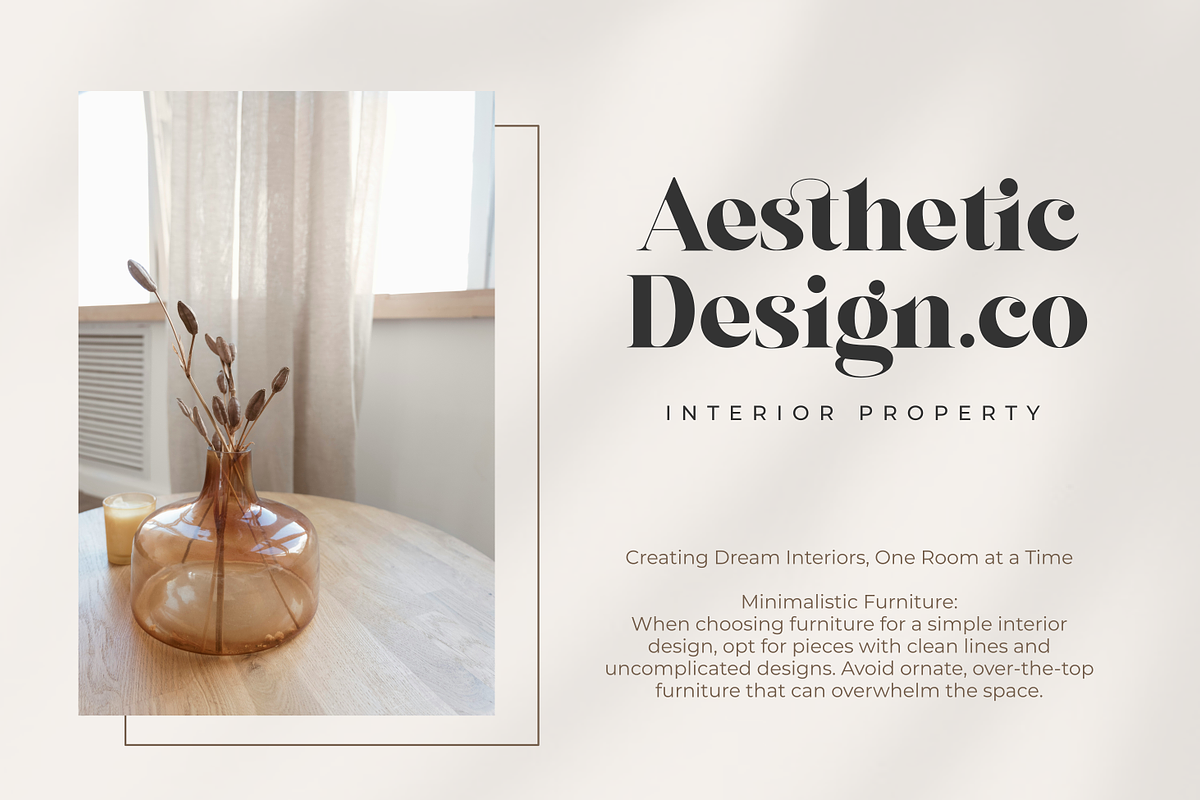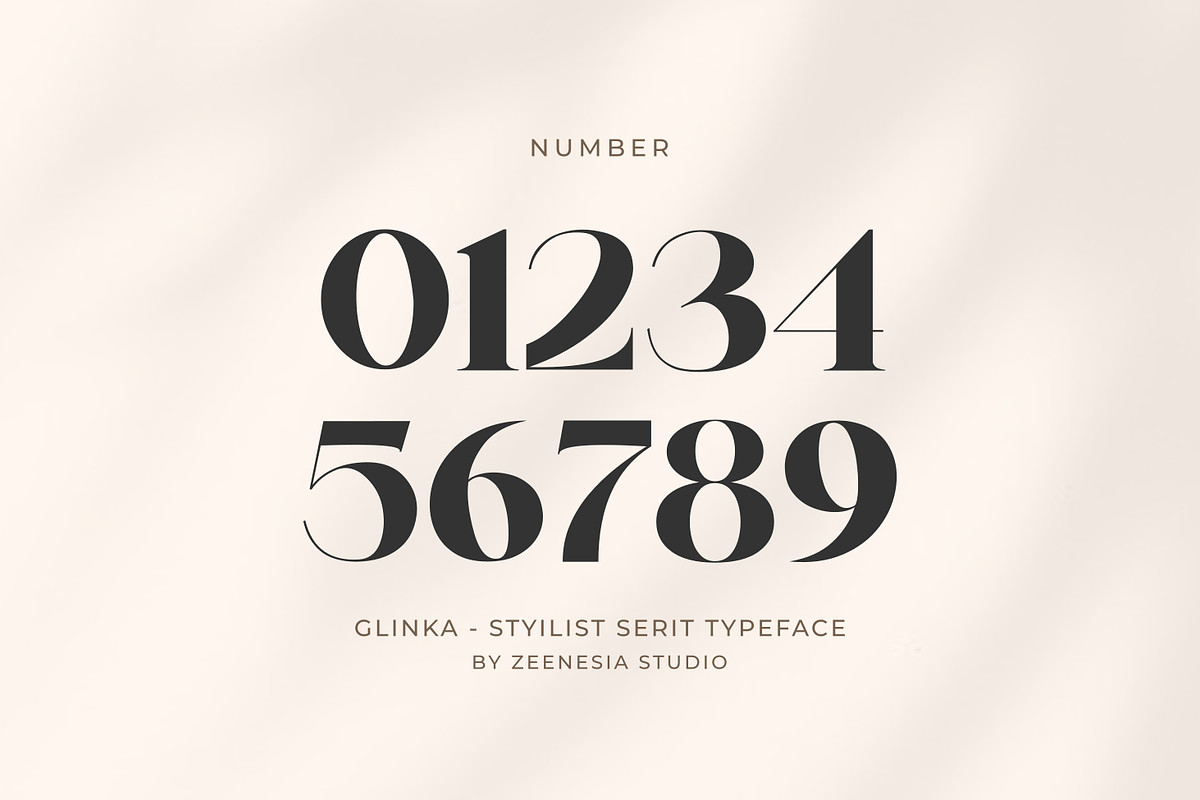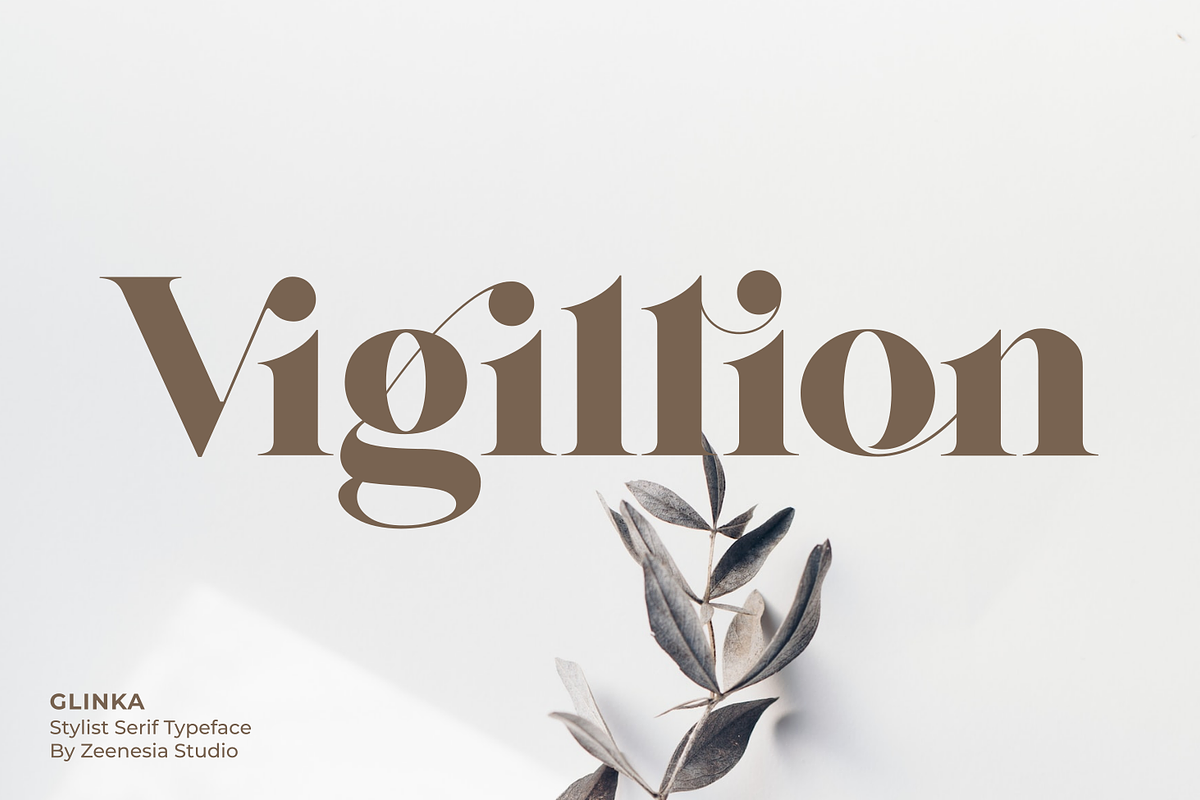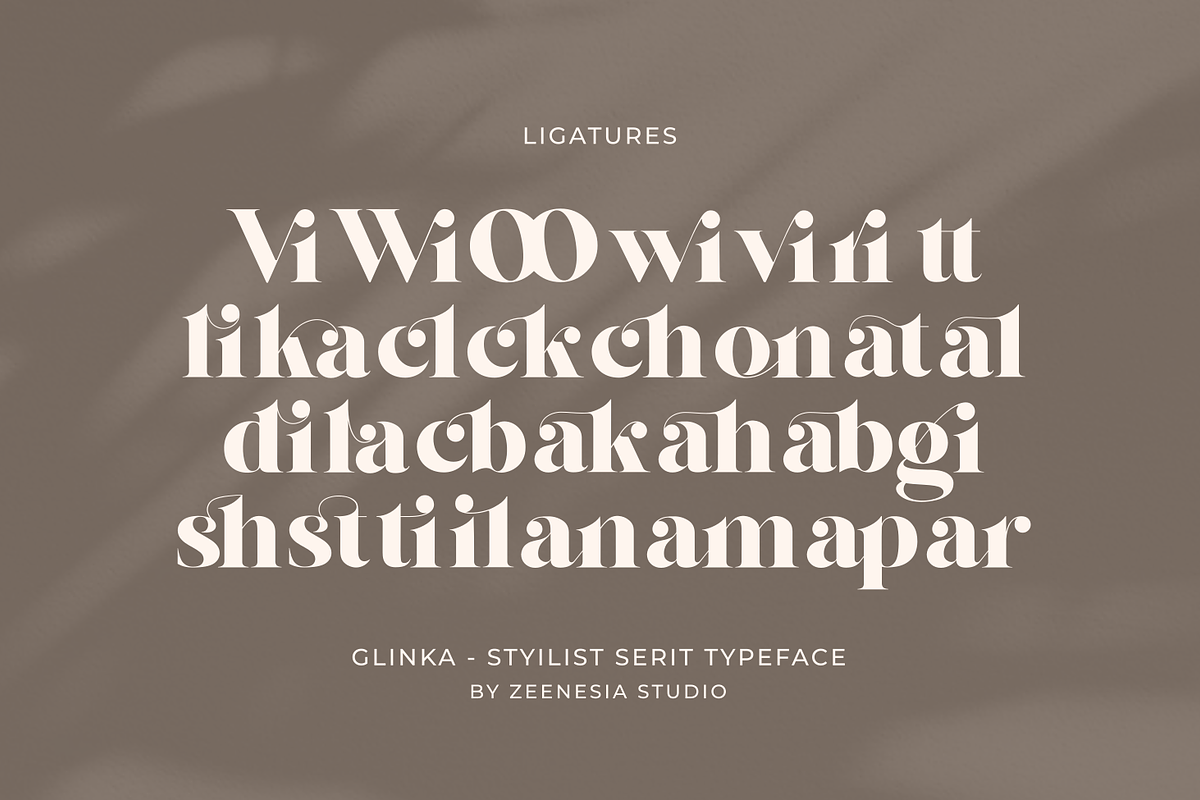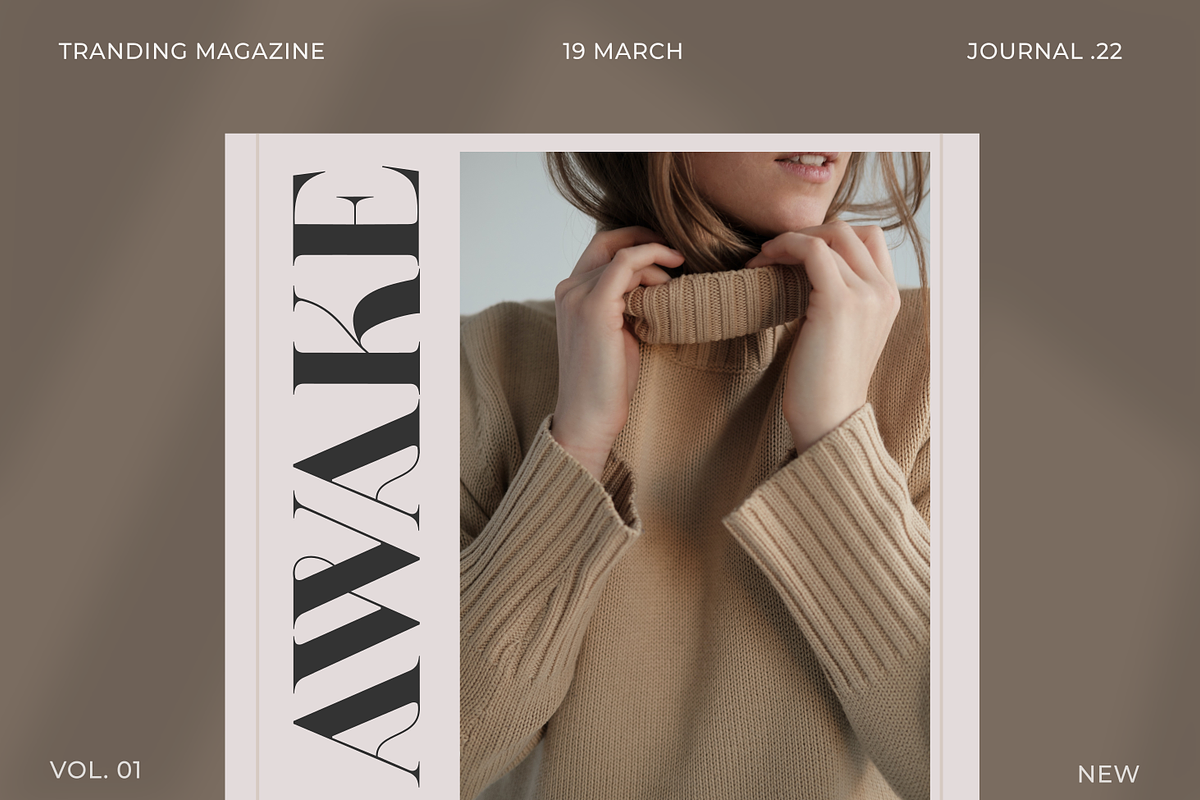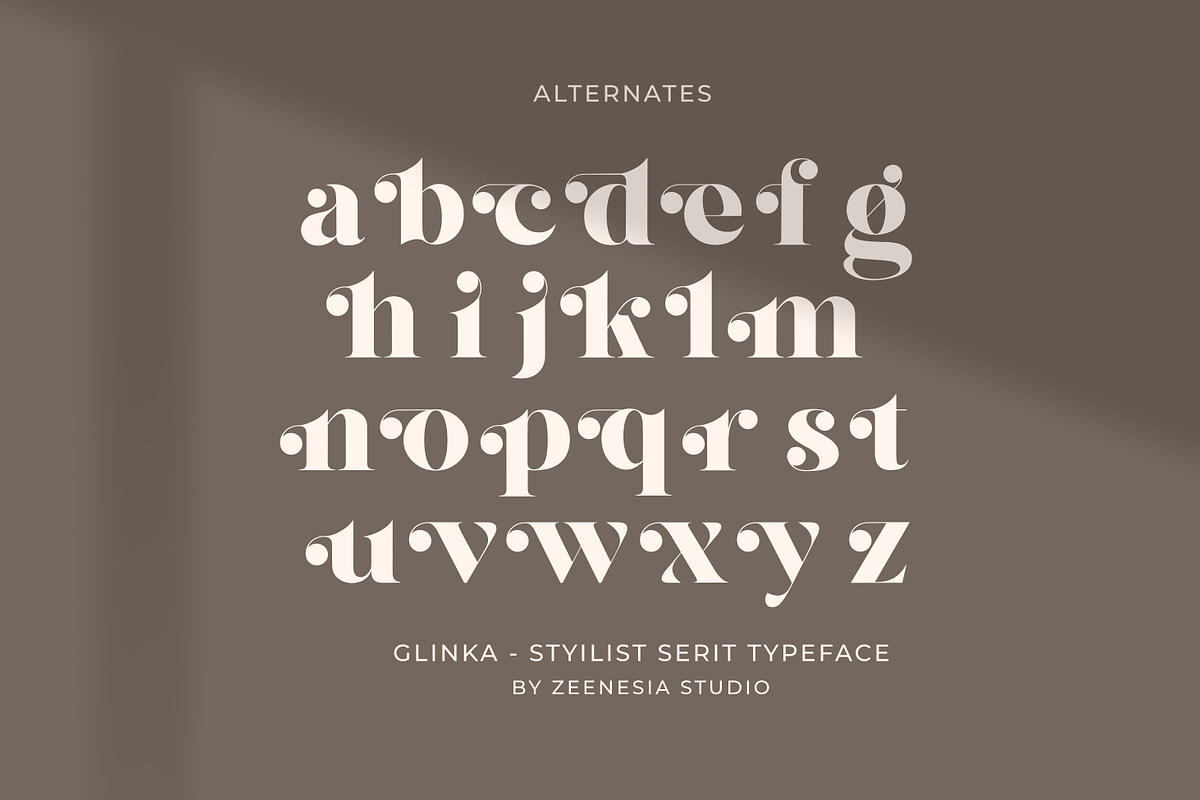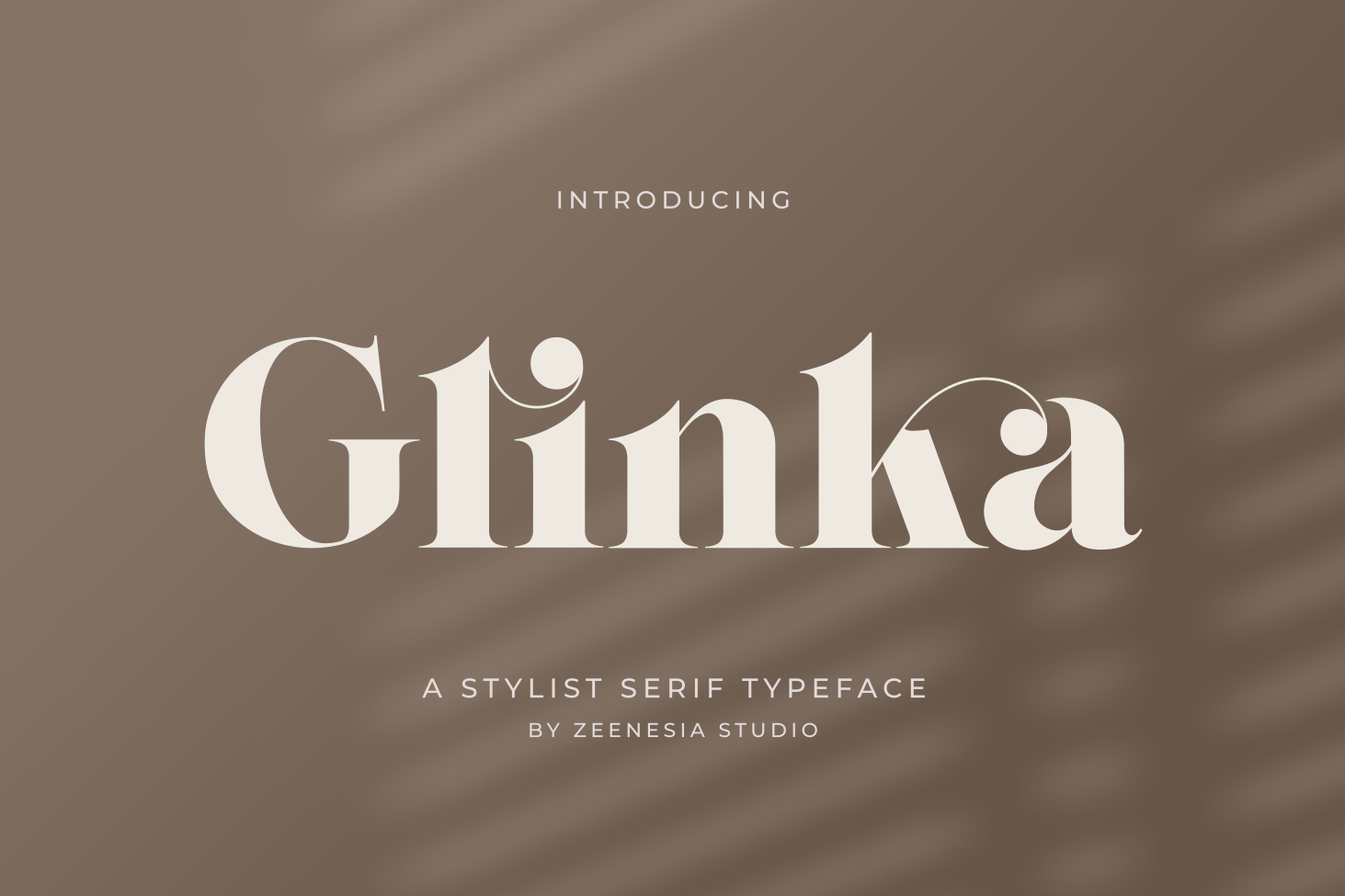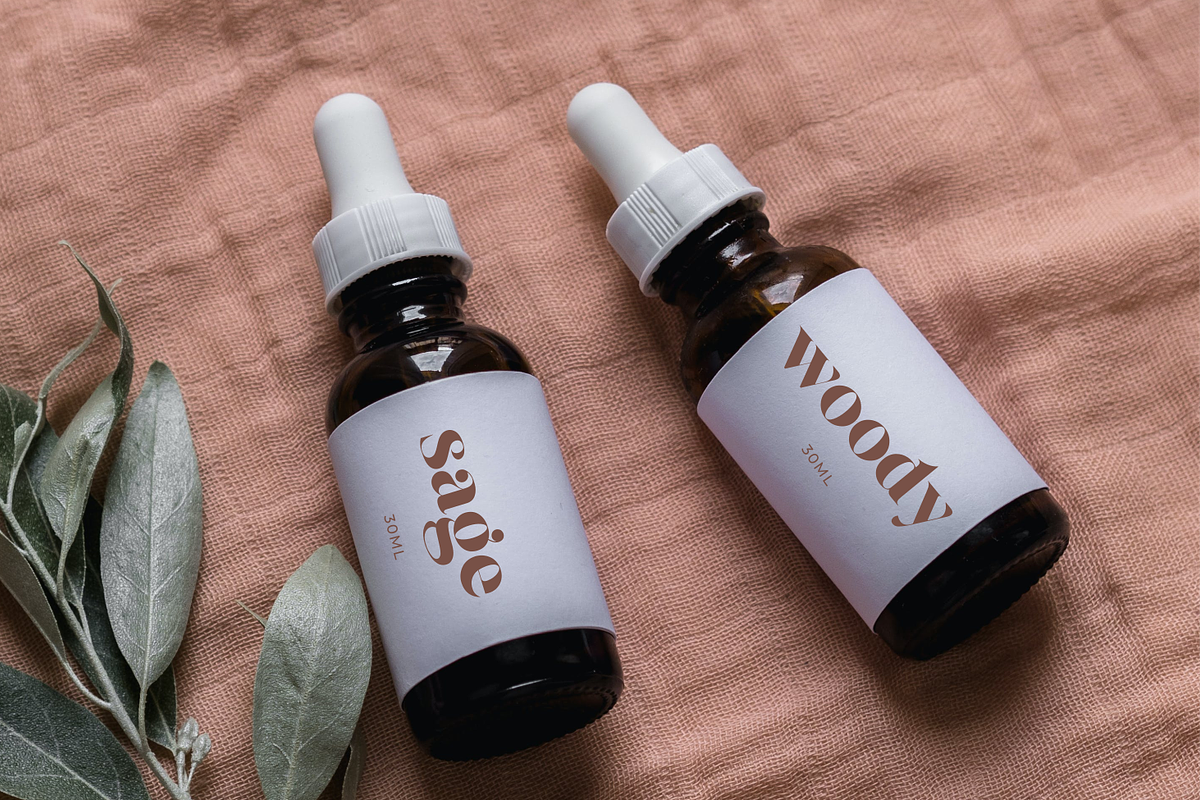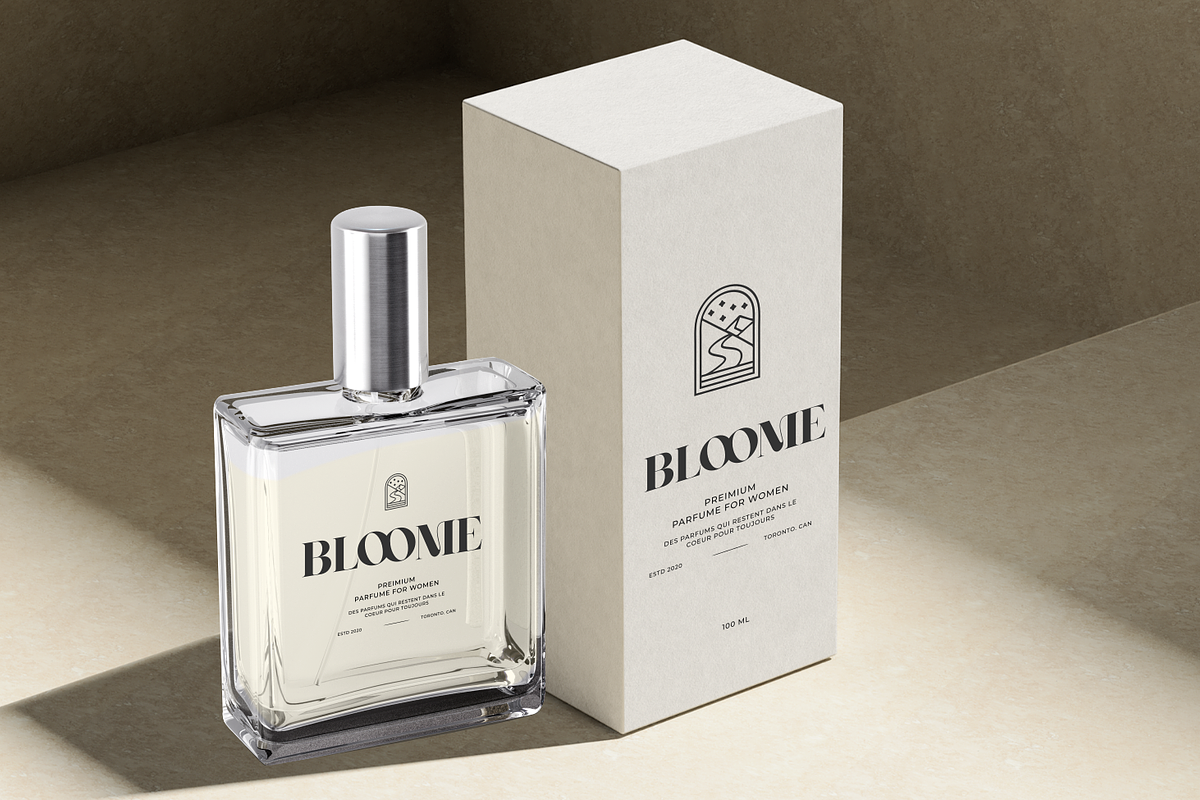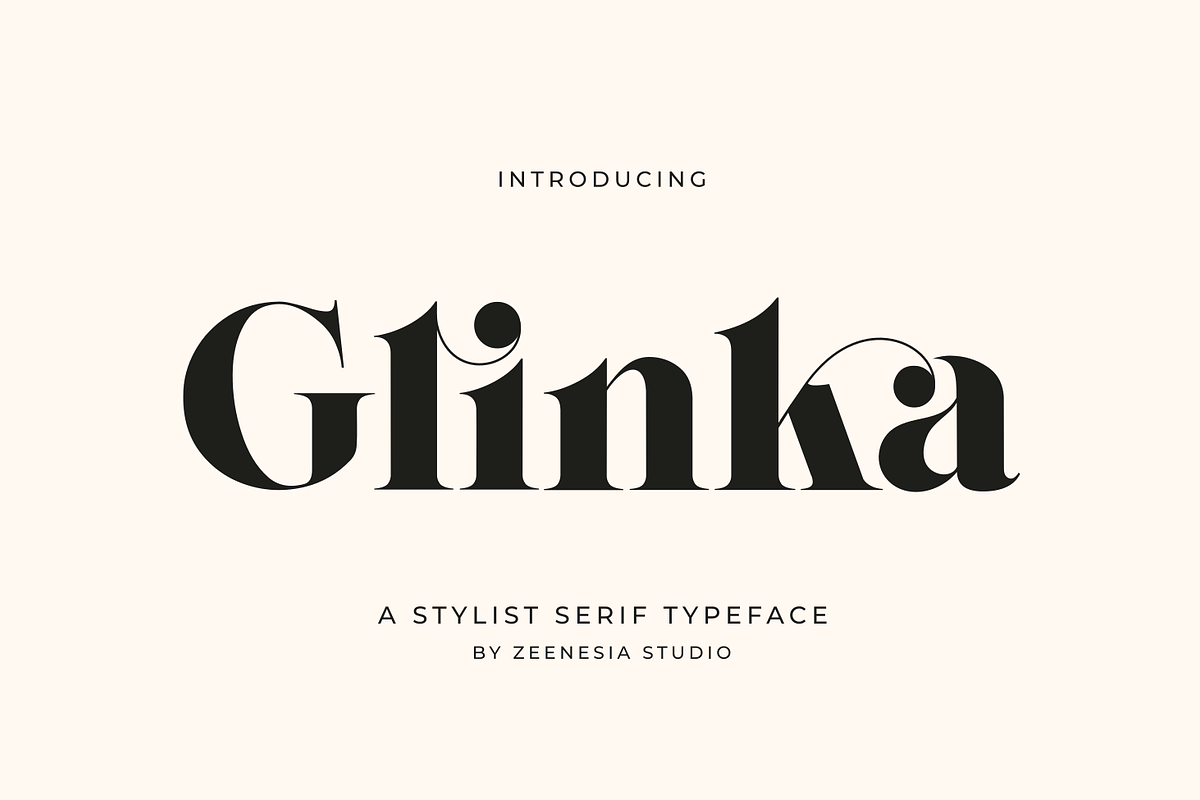
Glinka - A Stylist Serif Font
Introducing Glinka
Glinka is a modern and elegant serif font. I created many stylistic alternates and some natural ligatures to make this font very classy and look so classy. Glinka is well-suited for advertising, branding, logotypes, packaging, titles, headlines and editorial design. I created more much alternates variant and much natural ligatures to make this font very classy and look so beauty. Glinka was built with open type features make your project will be perfect.